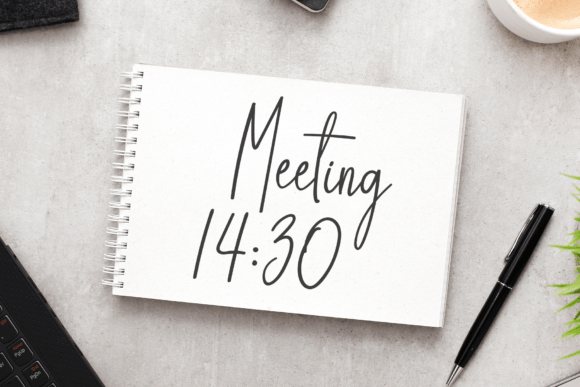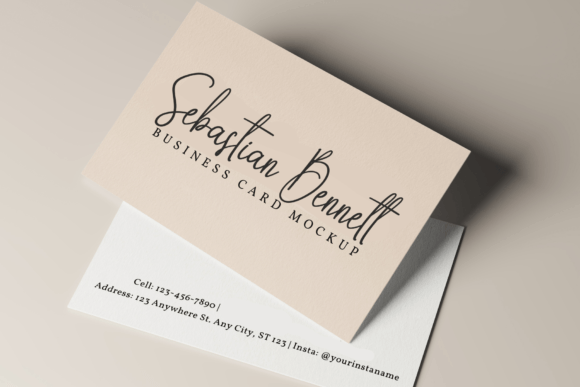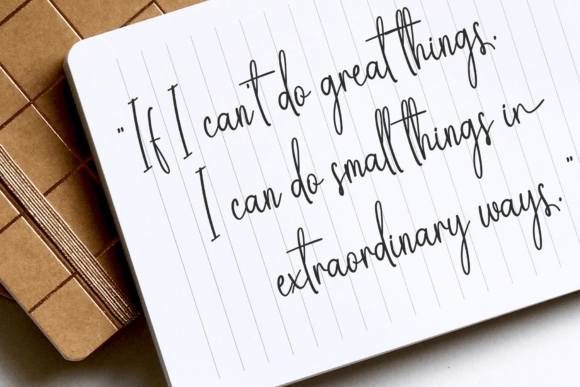
Introduction to Justines Dream Font
As a designer, you know that moment of pure joy when a project finally comes together – the perfect blend of creativity, color, and typography. It’s that moment when you realize your vision has taken shape, and you can’t wait to share it with the world. And for that, you need the right font – a font that speaks to your unique style and elevates your design to new heights. That’s where Justines Dream Font comes in – a luxury handwritten font that will transport your creative projects to a whole new level.
Whether you’re working on a wedding invitation, a branding campaign, or a social media graphic, Justines Dream Font is the perfect design resource to add an elegant touch to your work. With its incredibly distinct and timeless style, this font is sure to make your designs stand out from the crowd. And the best part? It’s a high-quality, free download that’s ready to use right away – perfect for designers on a budget.
Key Features of Justines Dream Font
- High-quality design resource perfect for creative projects, available for free download
- Unique, elegant script font with a transparent background, ideal for adding a touch of sophistication to designs
- Includes a full character set, including uppercase and lowercase letters, numbers, and punctuation marks
- Designed to be versatile, making it suitable for various design projects, from wedding invitations to branding materials
Honest Review: Justines Dream Font
I recently had the chance to work with Justines Dream Font, a design resource that promises to elevate any creative project. As a designer, I was excited to see if it lived up to its promise.
Here are my thoughts on what works well:
- ✨ High-quality font files that are perfect for printing or digital use
- ✨ Transparent background, making it easy to use in any design context
- ✨ Free download, making it accessible to designers on a budget
- ⚠️ Limited character set, which may not be suitable for lengthy text projects
- ⚠️ Not ideal for projects that require a lot of font variations or styles
Overall, I’m impressed with Justines Dream Font. It’s a solid choice for designers looking for a high-quality, easy-to-use font for their creative projects. While it may not be perfect, it’s a great resource to have in your toolkit.
Justines Dream Font is ideal for creative projects such as graphic design, typography, and branding. It can also be used for presentations, documents, and other visual communications.